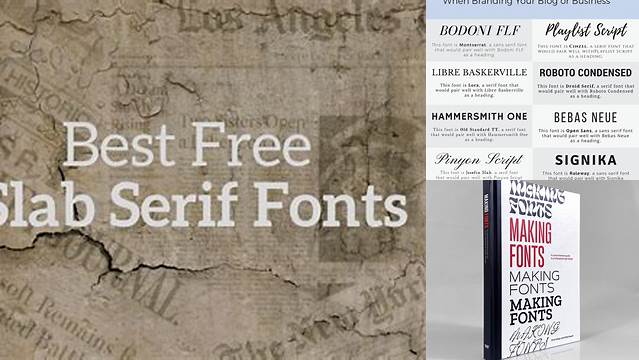
Text All Fonts: A Comprehensive Guide
Hey guys! Ever wondered about all those fonts you see floating around? From the super serious to the totally wacky, fonts are everywhere. This guide is all about diving into the world of text and fonts, making sure you know your serifs from your sans-serifs. So, buckle up, and let's get font-astic!
Text Font Types: An Overview
Text fonts come in all shapes and sizes, each with its own unique personality. Understanding the different types is the first step in choosing the right font for your project. We'll break down the major categories and explore some popular examples.
Think of font types as different flavors of ice cream β you've got your classics, your funky specials, and everything in between. From formal documents to eye-catching posters, the right font can make all the difference. Let's jump in and see what's out there, shall we?
Serif Fonts Explained
Serif fonts are those with little decorative strokes, or βserifs,β at the end of each character. Think Times New Roman or Garamond. These fonts are often considered traditional and are great for large blocks of text, like in books or newspapers. The serifs help guide the eye across the page, making reading easier.
Imagine you're reading a novel β chances are, it's set in a serif font. These fonts have a certain elegance and sophistication that makes them perfect for formal occasions. But don't think they're just for old-school stuff; many modern designs incorporate serifs for a touch of class. When choosing a serif font, consider the overall tone you want to convey β are you aiming for classic and timeless, or something a bit more contemporary?
Sans-Serif Fonts: A Modern Touch
On the flip side, sans-serif fonts are clean and modern, without those little decorative strokes. Arial, Helvetica, and Open Sans are popular examples. These fonts are often used for headings, websites, and other digital media where readability is key. Their simplicity makes them easy to read on screens of all sizes.
If you're designing a website or app, a sans-serif font is often the way to go. They have a fresh, contemporary feel that works well for digital interfaces. Plus, they tend to be highly legible, even at smaller sizes. When choosing a sans-serif font, think about the overall aesthetic you're trying to achieve β do you want something sleek and minimalist, or something with a bit more personality?
Monospace Fonts: Fixed Width Wonders
Monospace fonts are a bit different. Each character takes up the same amount of horizontal space, making them popular for coding and technical writing. Courier New is a classic example. While they might not be the prettiest fonts around, their consistency makes them ideal for situations where alignment is crucial.
Think of those old typewriters β they used monospace fonts. While they might not be as versatile as serif or sans-serif fonts, monospace fonts have a unique charm. They're often used in terminal emulators and text editors, where precise alignment is essential. If you're a programmer, you're probably very familiar with these fonts.
Script Fonts: Adding a Personal Touch
Script fonts mimic handwriting, adding a personal and elegant touch to your designs. These fonts are great for invitations, logos, and other projects where you want to make a statement. Brush Script and Pacifico are popular examples.
Imagine receiving a handwritten letter β script fonts try to capture that same feeling. They can add a touch of romance, whimsy, or sophistication to your designs. However, it's important to use them sparingly, as they can be difficult to read in large blocks of text. Save them for headings, logos, or other short pieces of text where you want to make an impact.
Display Fonts: Unique and Eye-Catching
Display fonts are designed to grab attention. They come in all sorts of styles, from bold and blocky to quirky and whimsical. These fonts are perfect for headlines, posters, and other projects where you want to make a statement. Just be careful not to overuse them, as they can be overwhelming in large blocks of text.
Think of display fonts as the rock stars of the font world. They're loud, bold, and designed to stand out. They can add a lot of personality to your designs, but they're best used sparingly. Save them for headlines, posters, or other situations where you want to make a big impact. When choosing a display font, consider the overall tone you want to convey β are you aiming for fun and playful, or something more edgy and dramatic?
Text All Fonts: Font Pairing Tips
Choosing the right font is only half the battle. Pairing fonts effectively can take your designs to the next level. Here are a few tips to keep in mind:
Combining Serif and Sans-Serif
A classic combination is pairing a serif font for body text with a sans-serif font for headings. This creates a nice contrast and helps guide the reader's eye. For example, try pairing Times New Roman with Arial or Garamond with Helvetica.
These services are a great option for designers who want access to a wide range of fonts without having to manage them themselves. They handle licensing, font management, and updates, so you can focus on your designs. Plus, they offer a vast selection of fonts from top foundries, so you're sure to find something you love.
So there you have it! A deep dive into the world of text all fonts. Remember, choosing the right font is about more than just aesthetics; it's about readability, psychology, and accessibility. Happy designing, folks!